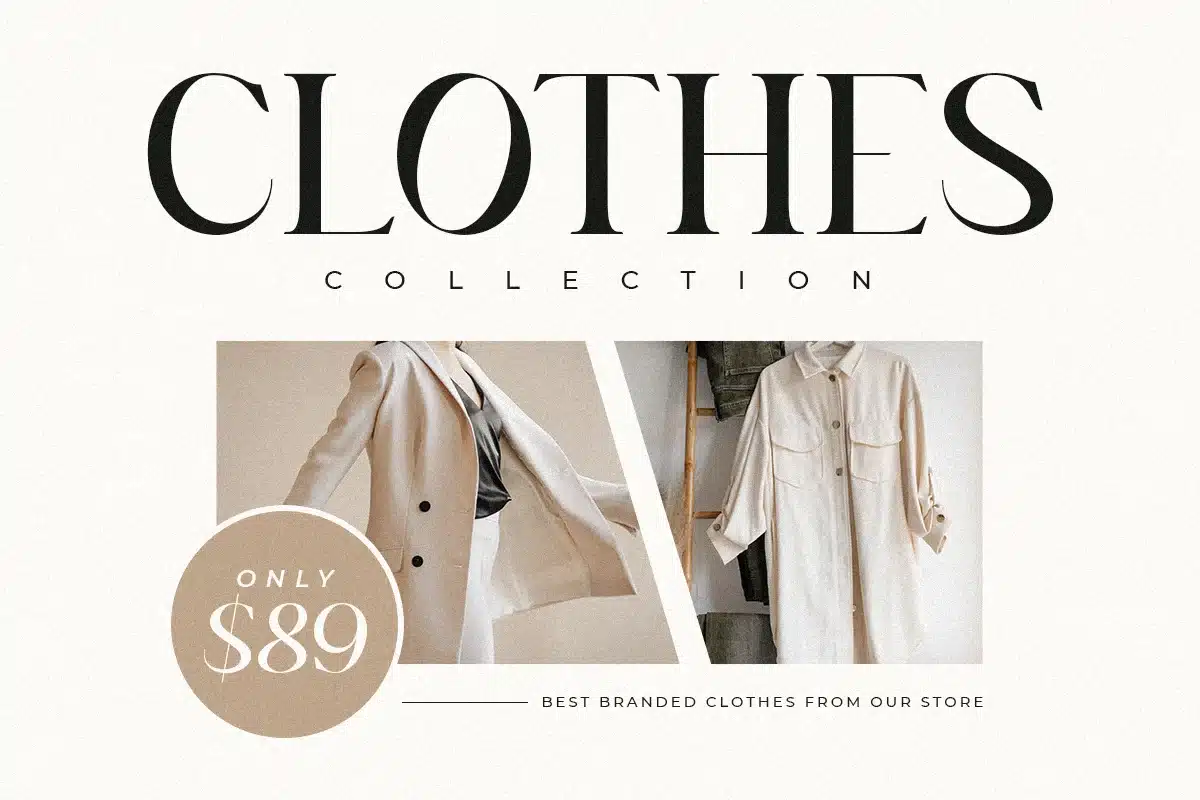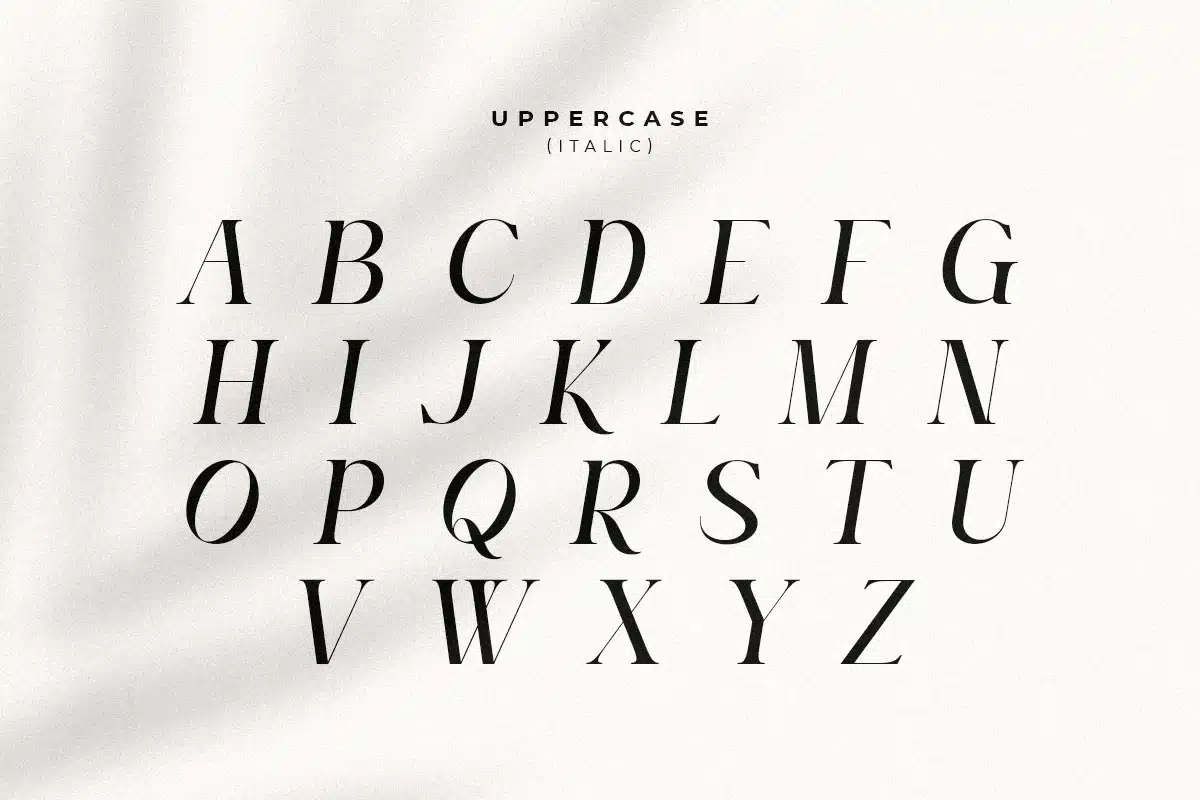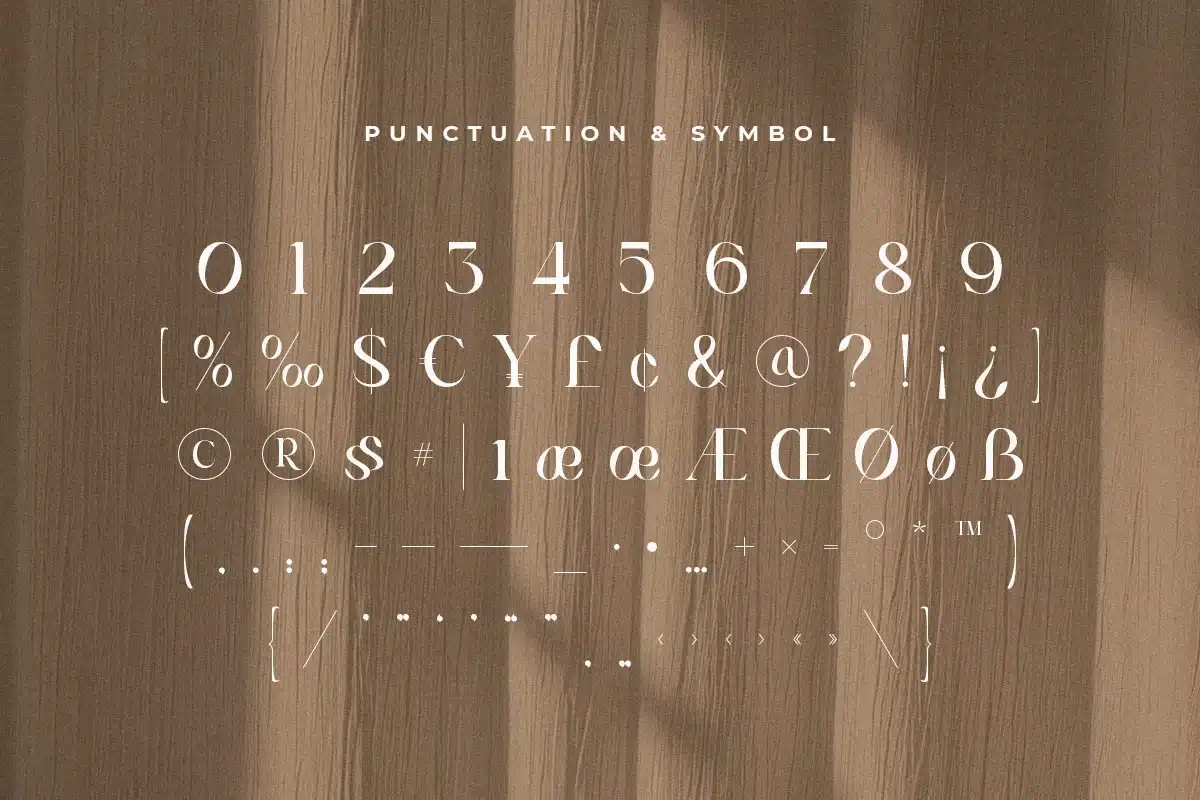
Naomi – Elegant Branding Serif Font
A Serif font that we created special for elegant branding needs, with extra ligature and alternates in unique shape will be ready to add value of your brand. It so nice to leverage designer or product owner that need solutions to make their design look more stylish and modern. And specially for Naomi font, We prepared any ligatures characters to help you create unlimited variations for your creative needs.
Naomi Serif font ready with:
- Ready with Regular and Italic version
- Ready with Lowercase and Uppercase characters